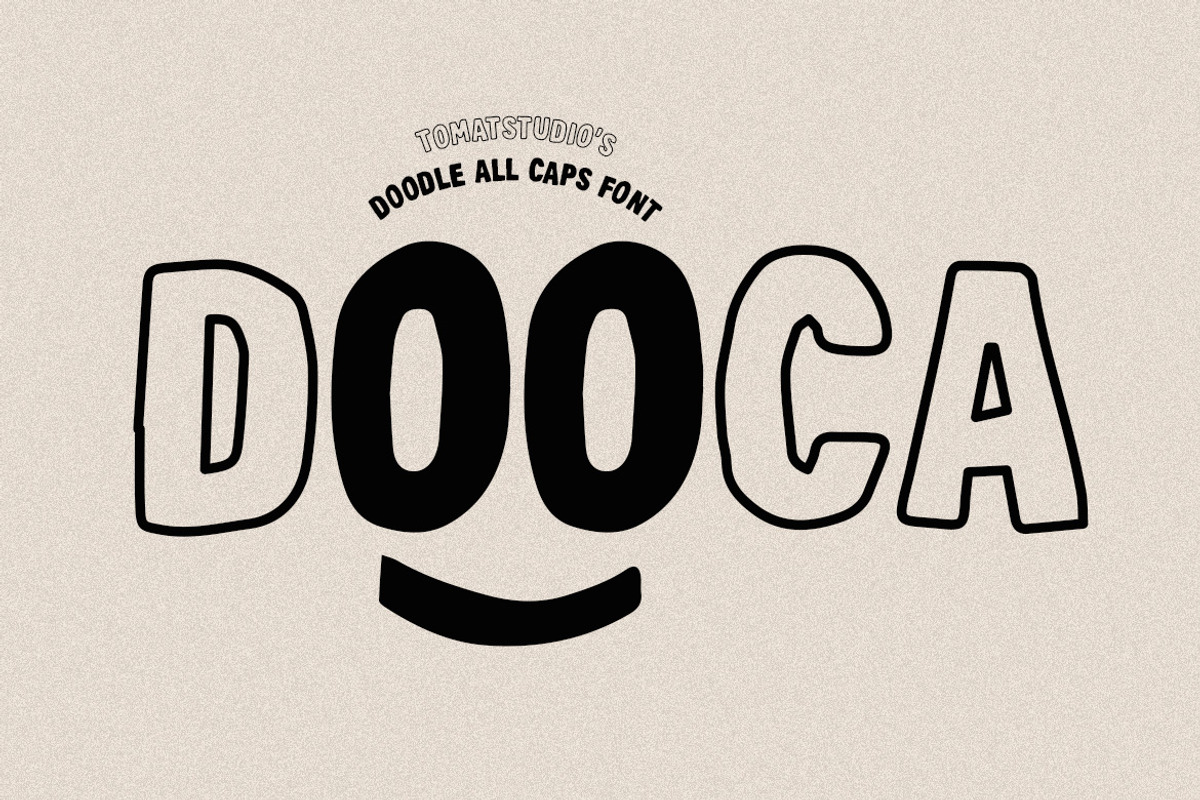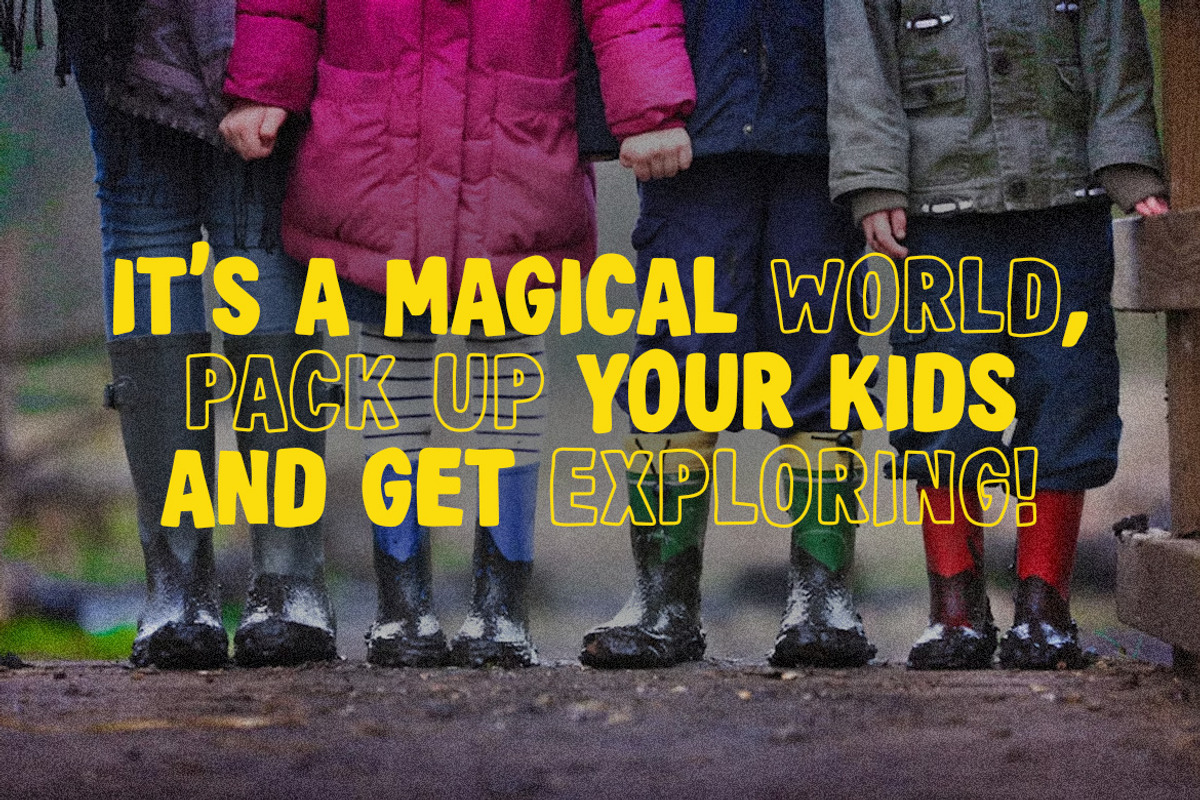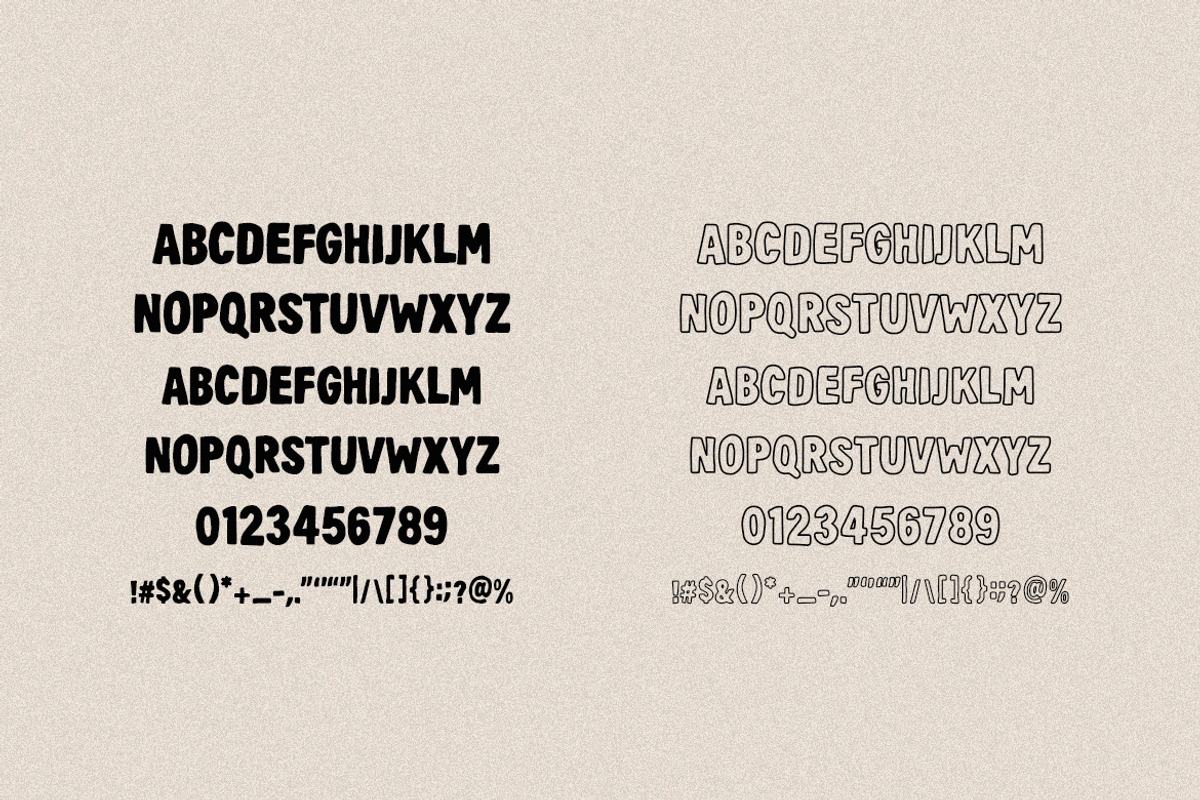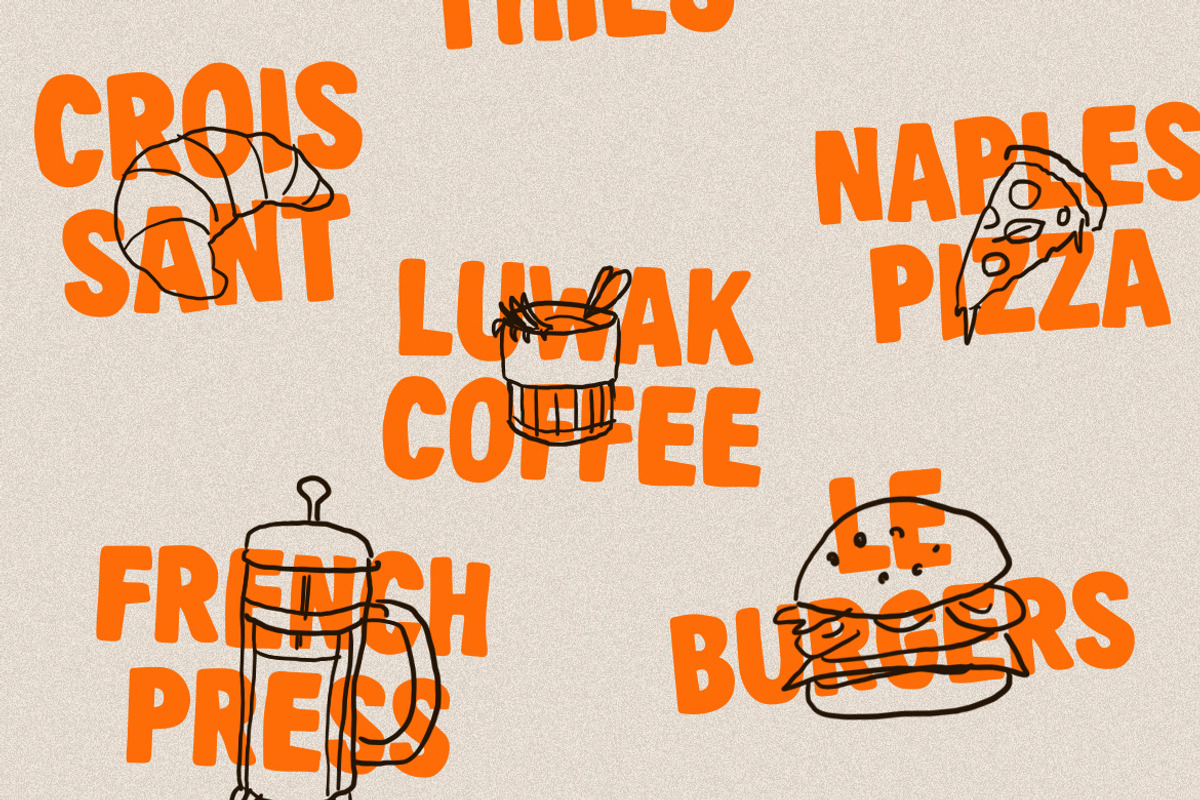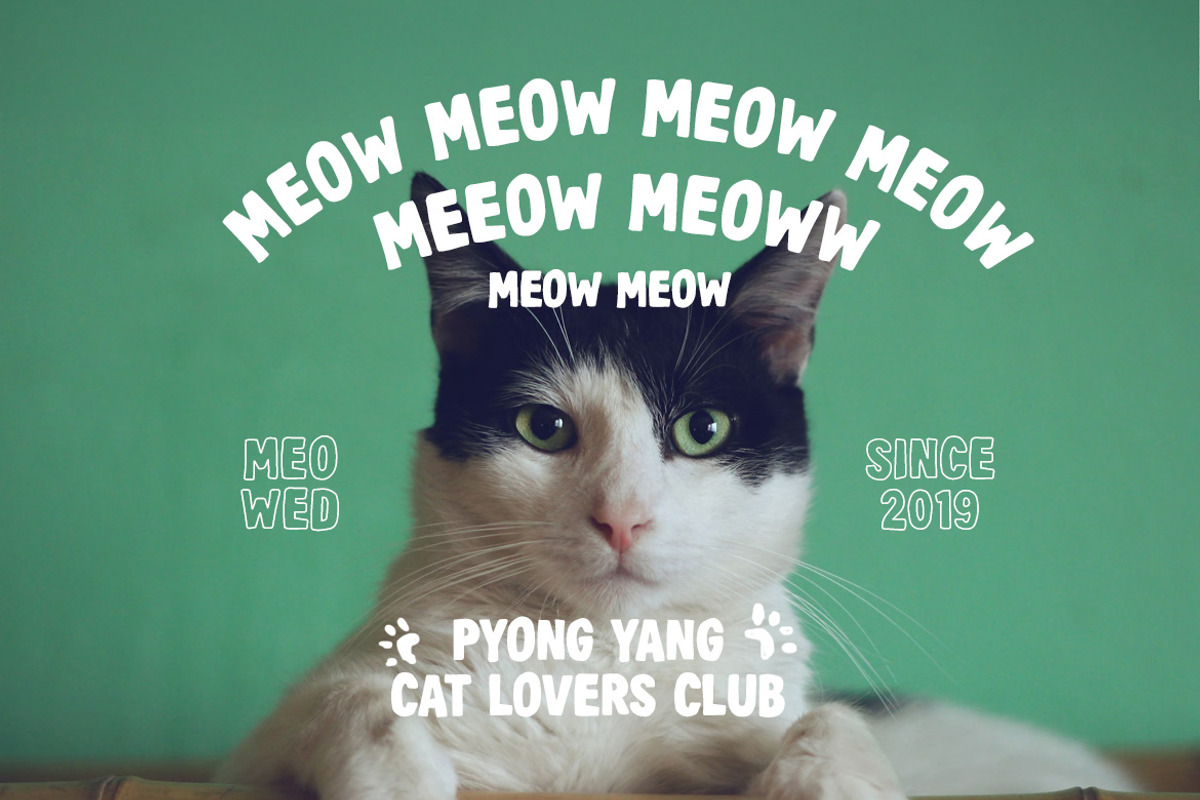
Dooca Doodle Fonts
Dooca is a doodle duo fun fonts, all capitals, 100% made by human hands. Altough its doodle fonts, Dooca is designed to be neat, so it can be used in formal design.
You'll get two fonts, dooca regular and dooca line. Perfect for doodle looks design, kids theme design, rough posters and many more!